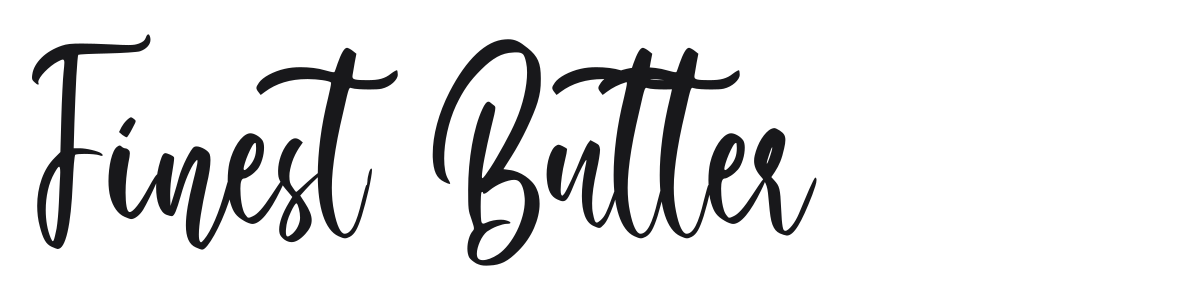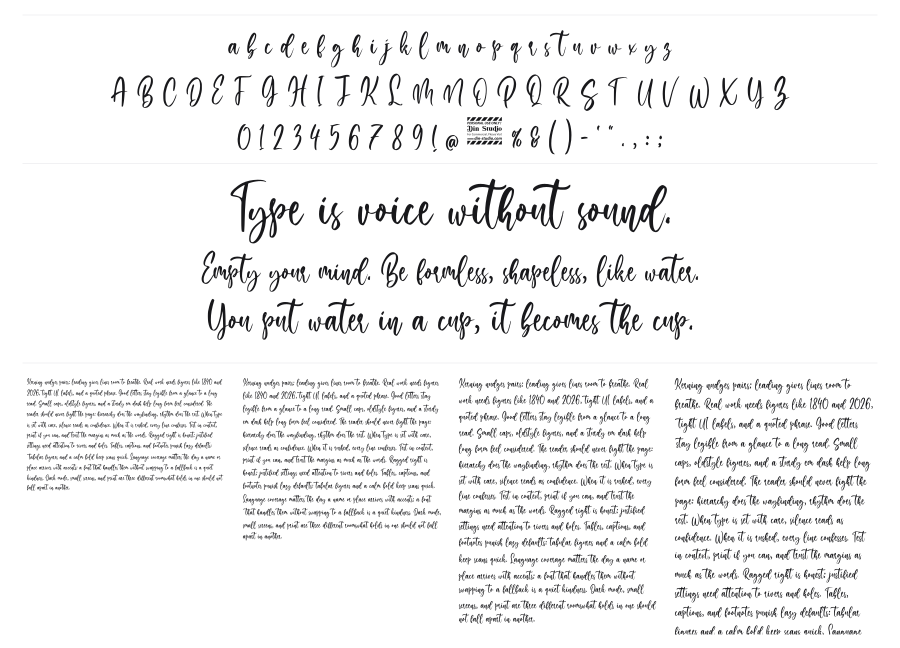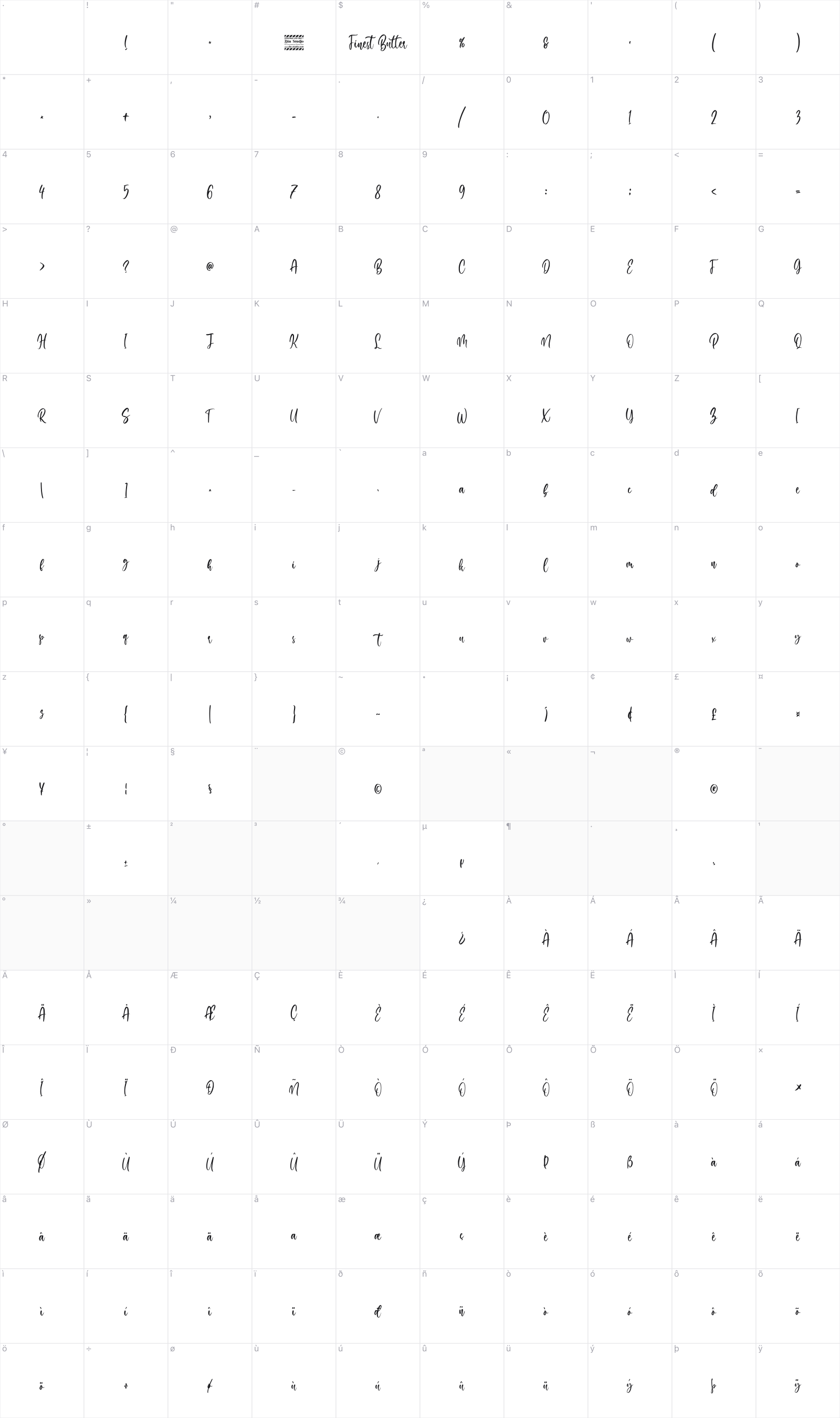
Finest Butter
Finest Butter is a modern casual script with a bouncy baseline and fluid connected strokes. The lively rhythm of the letters, combined with thick-to-thin stroke contrast and generous loops, gives it a handcrafted warmth that suits branding, wedding stationery, and lifestyle packaging. It's polished enough for professional work while still feeling personal.